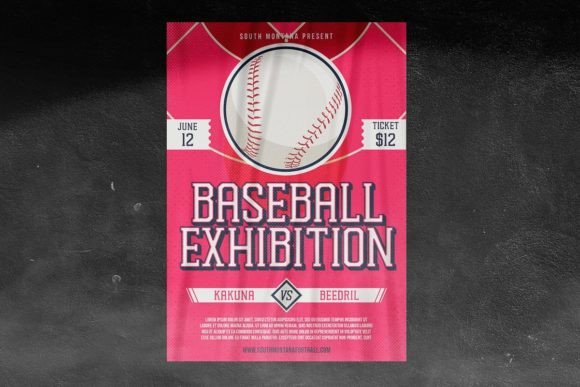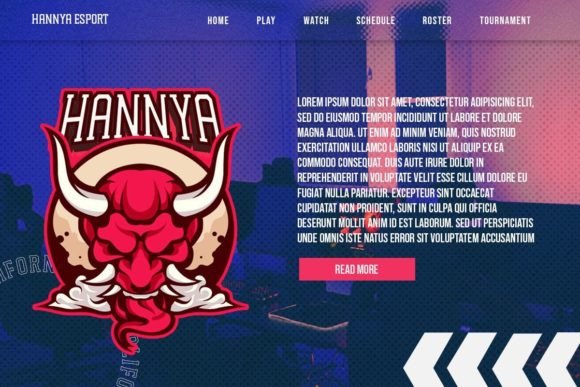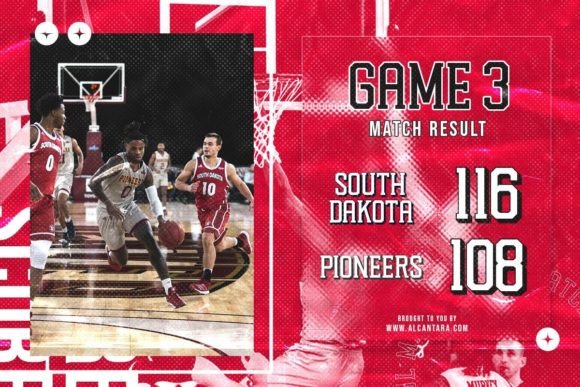
Introduction to Chicago Shift Font
Chicago Shift is a serif font specialized for sports themes.
Very suitable for a headline, logotype, apparel, invitation, branding, packaging, advertising, etc It goes well with old school/vintage as well as modern themes.